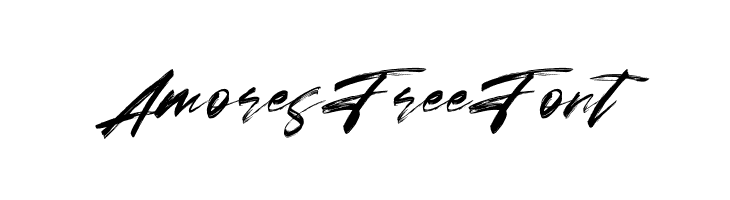
A playful, artistic handwritten font with dynamic strokes and whimsical flair.
A bold, expressive handwritten font with dynamic curves and fluid strokes.
A dynamic and expressive handwritten font with fluid, flowing letterforms.
A modern, handwritten font with a casual, flowing style.
A flowing, elegant script font with dynamic, connected characters.
An elegant script font with flowing, cursive letterforms and a classic, refined style.
A bold, expressive script font with dynamic, flowing strokes.
A bold, dynamic script font with flowing, cursive letters and a strong visual impact.
A fluid and elegant handwritten script with dynamic curves and loops.
A flowing, elegant script font with a natural handwriting style.